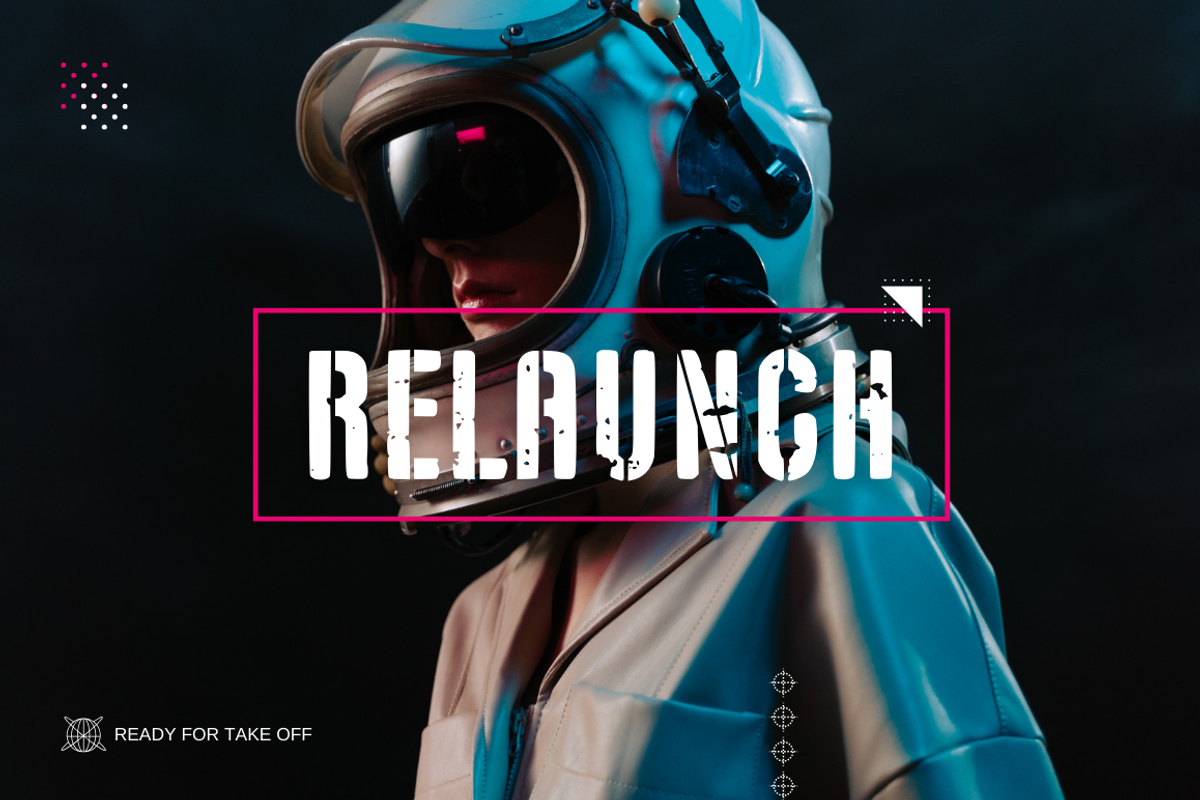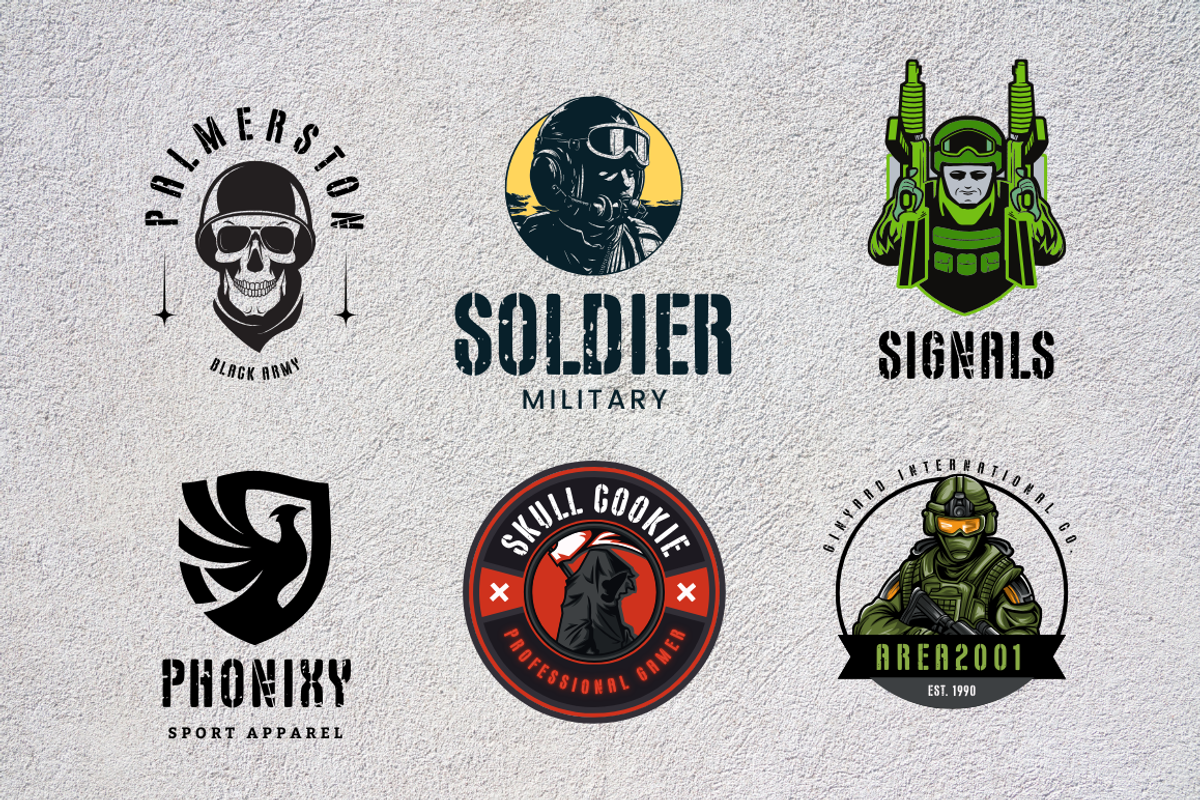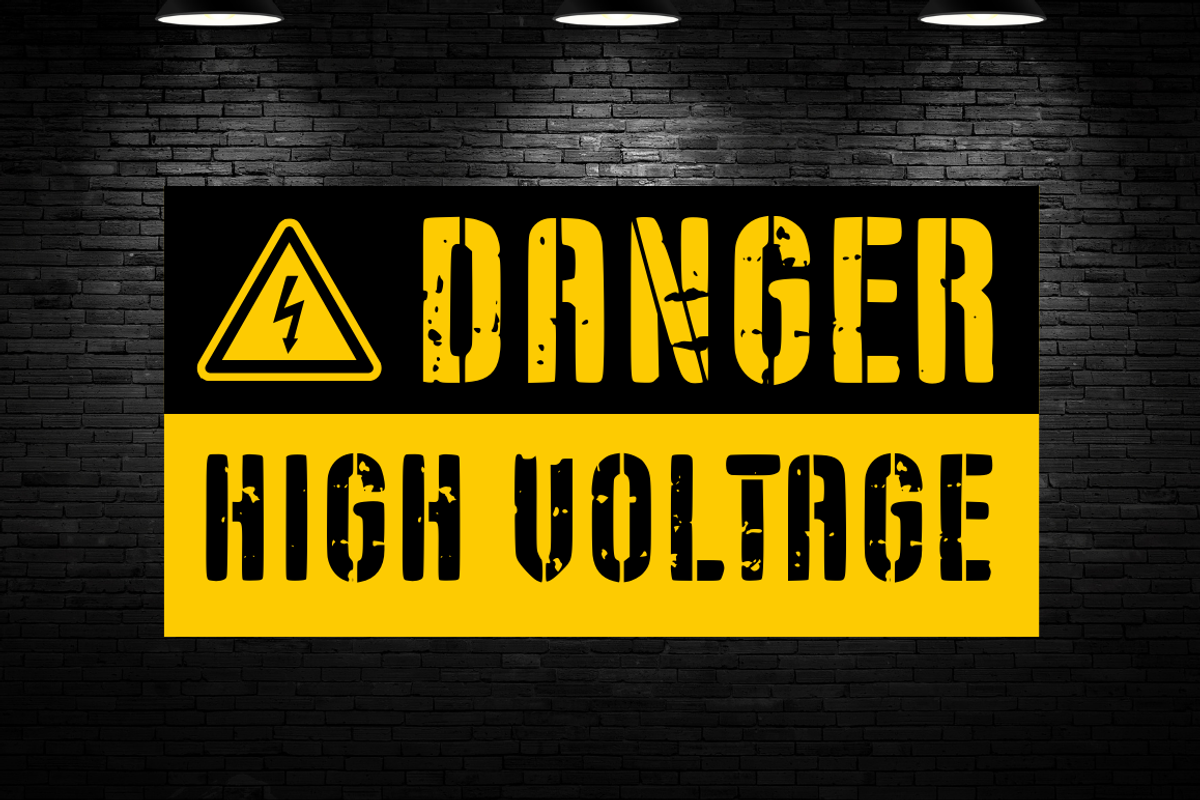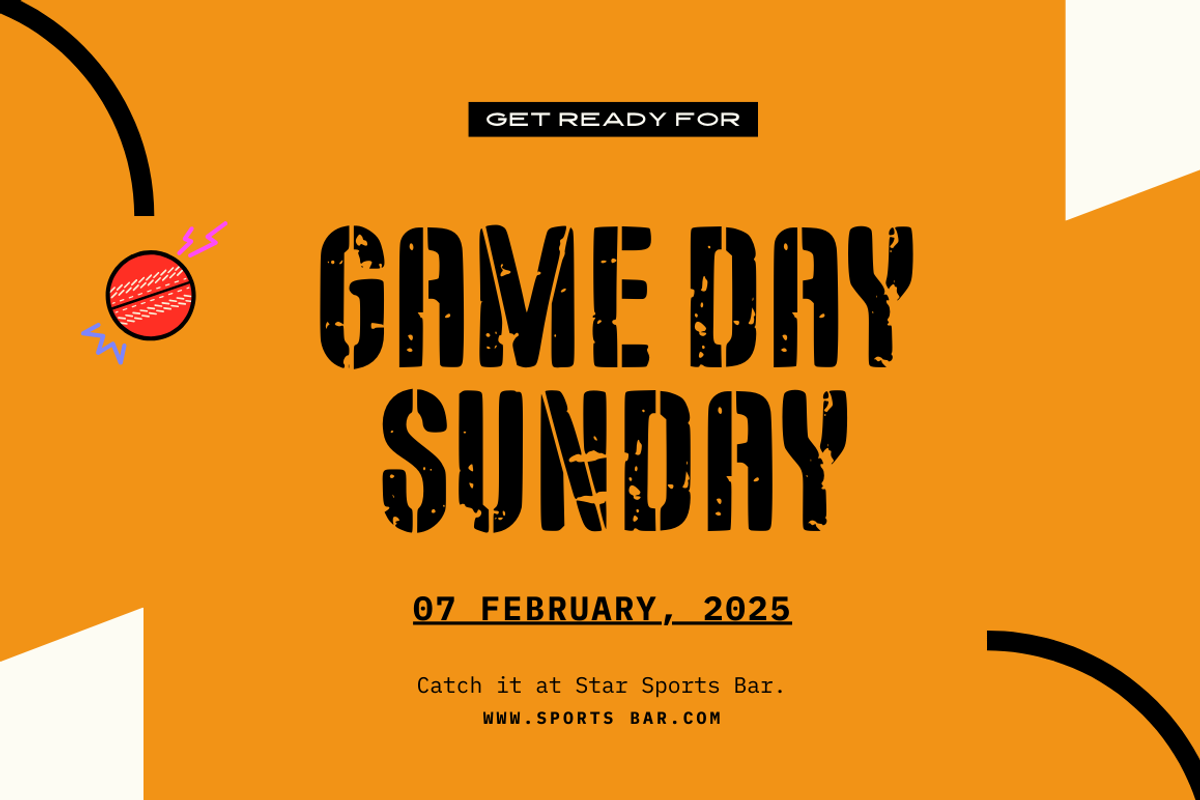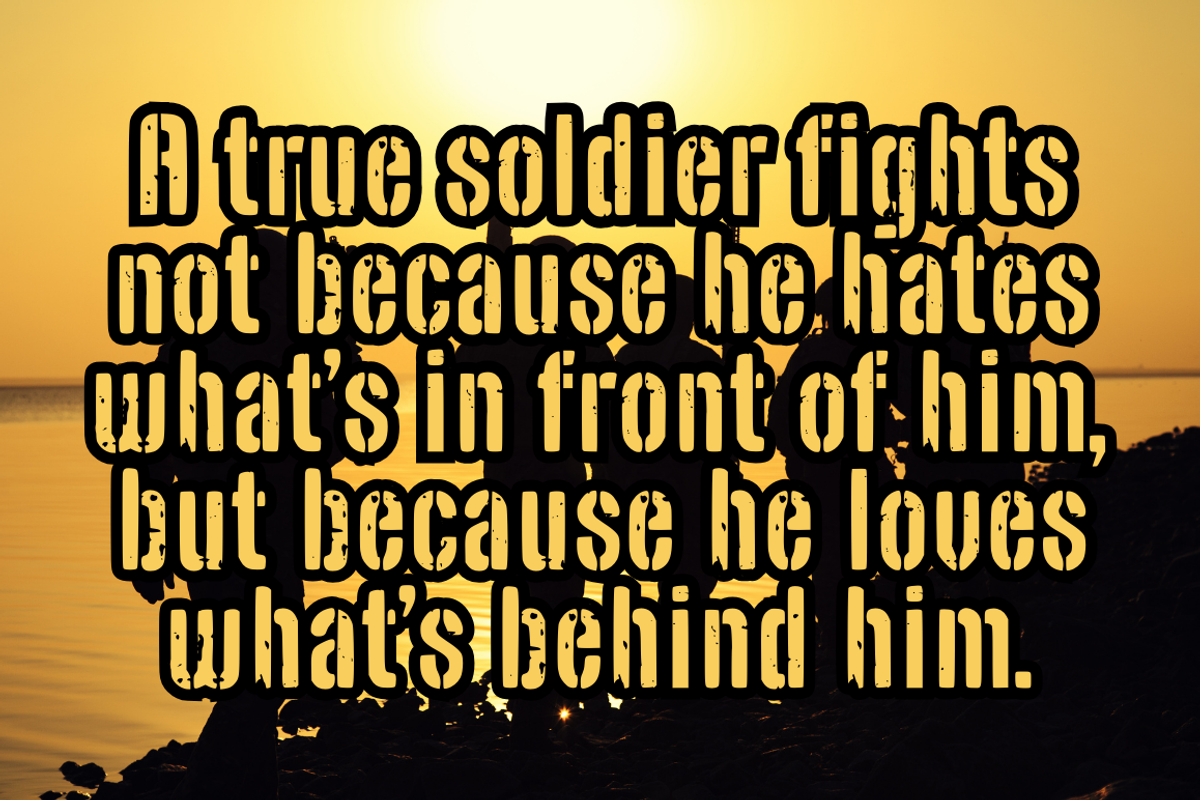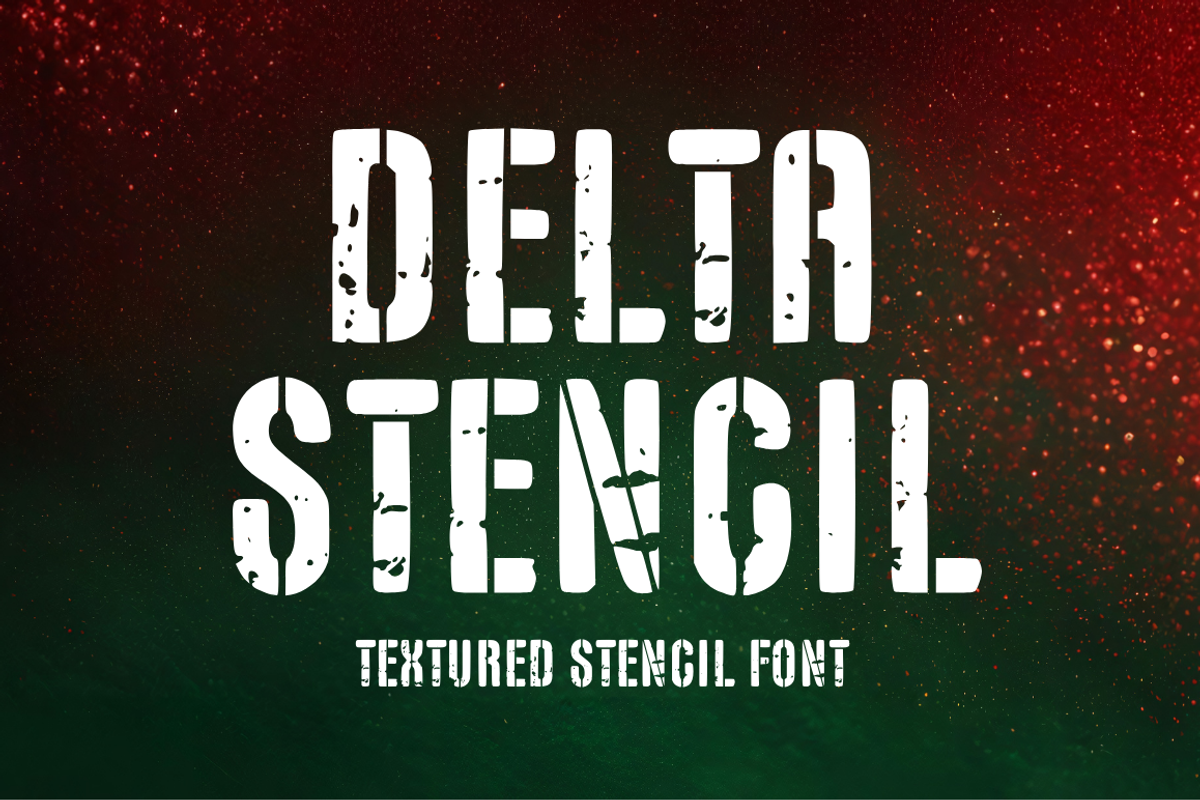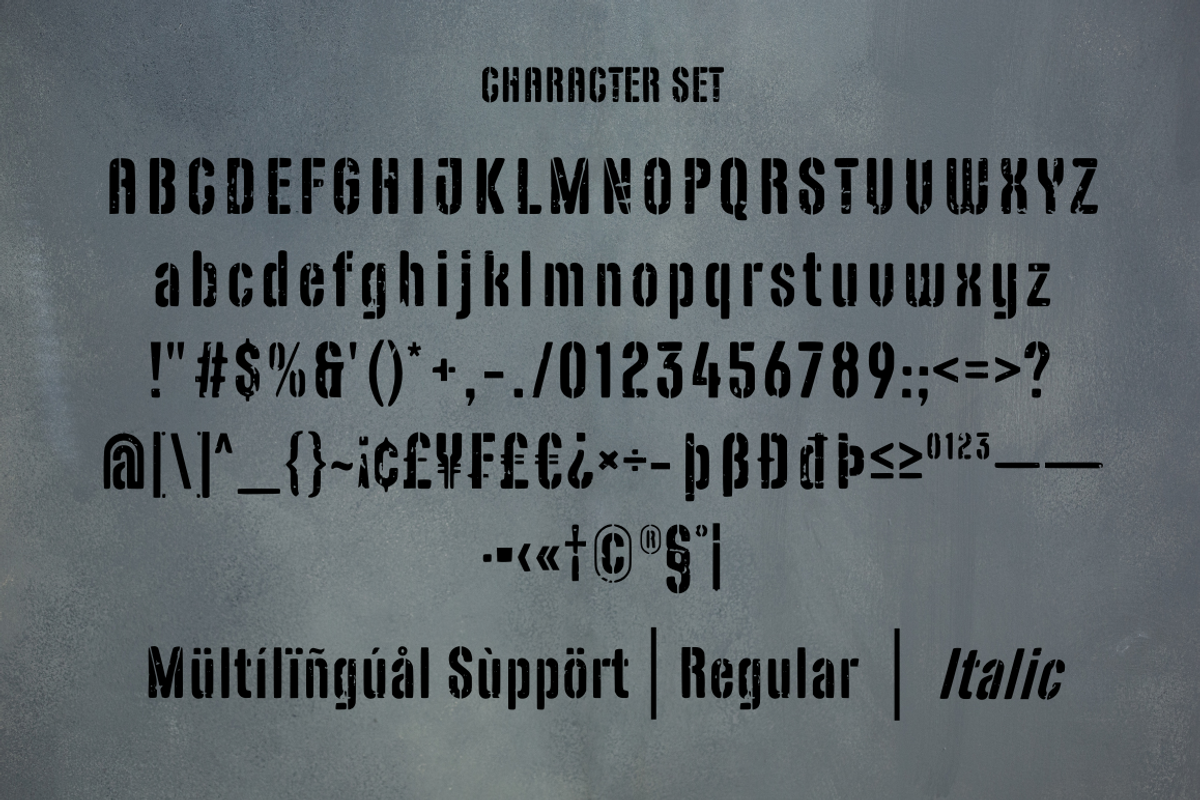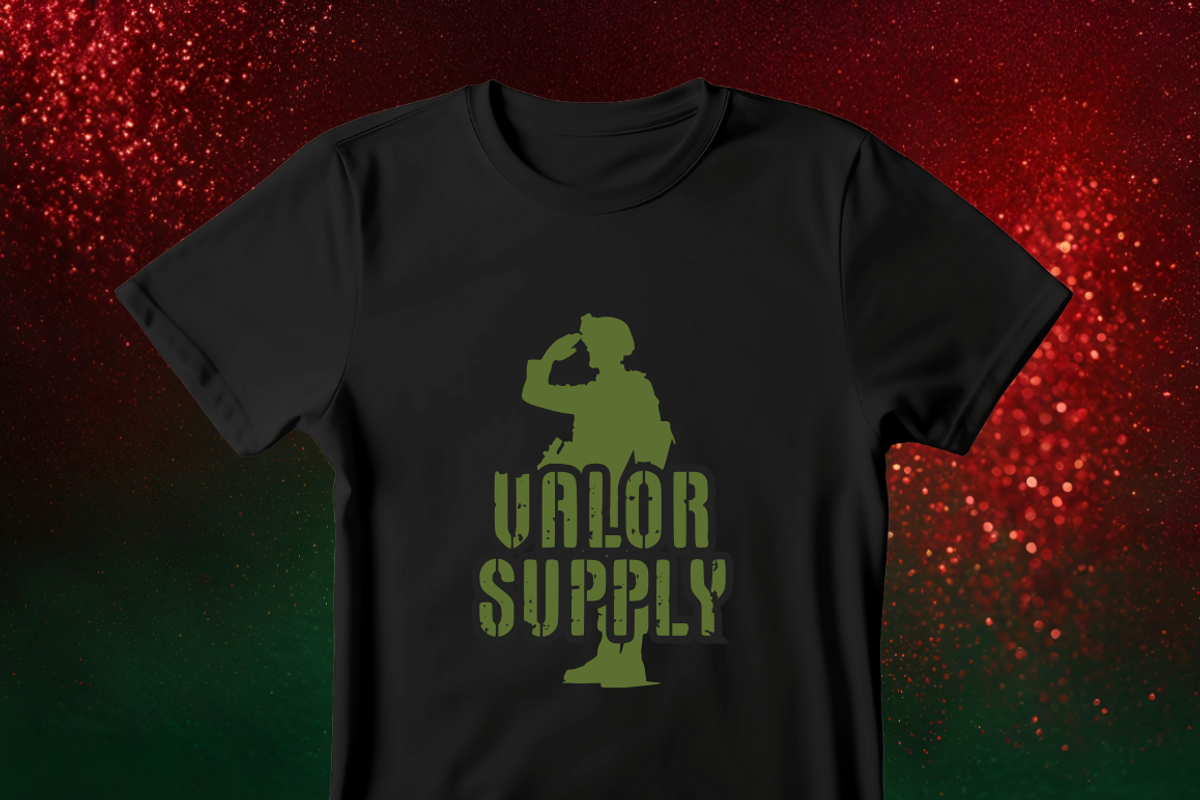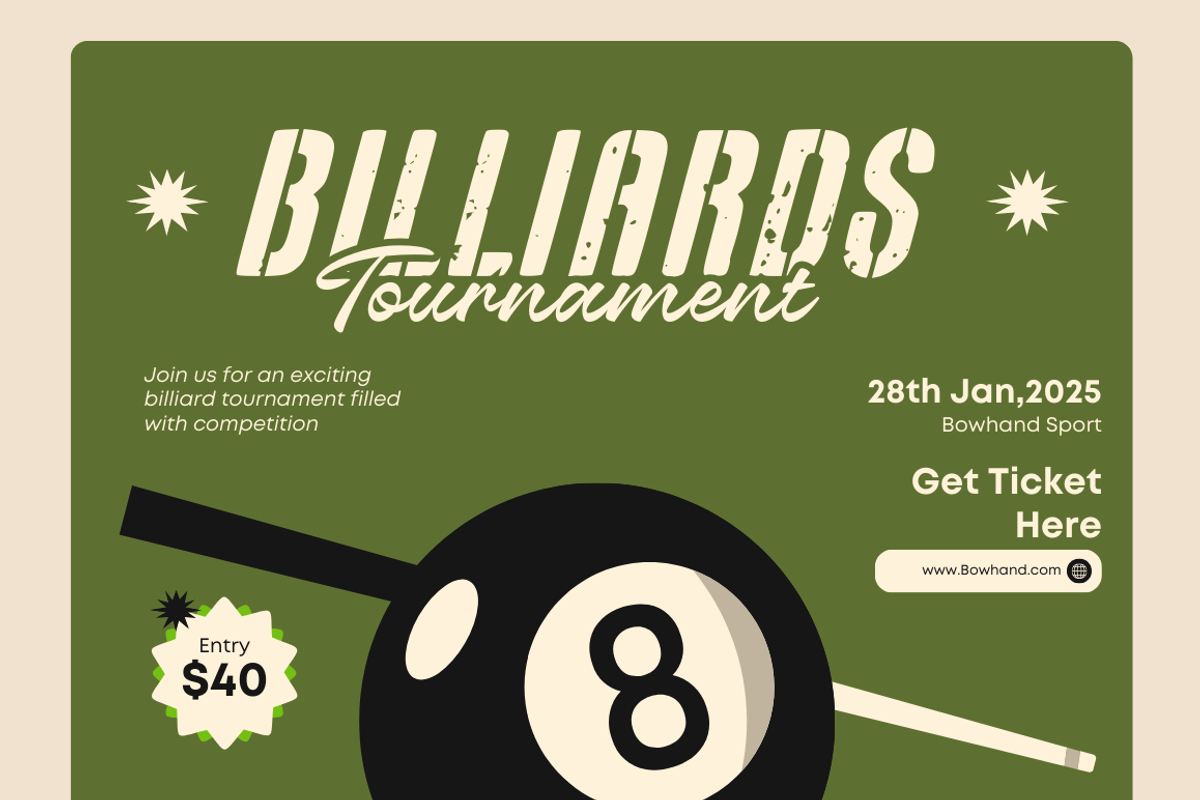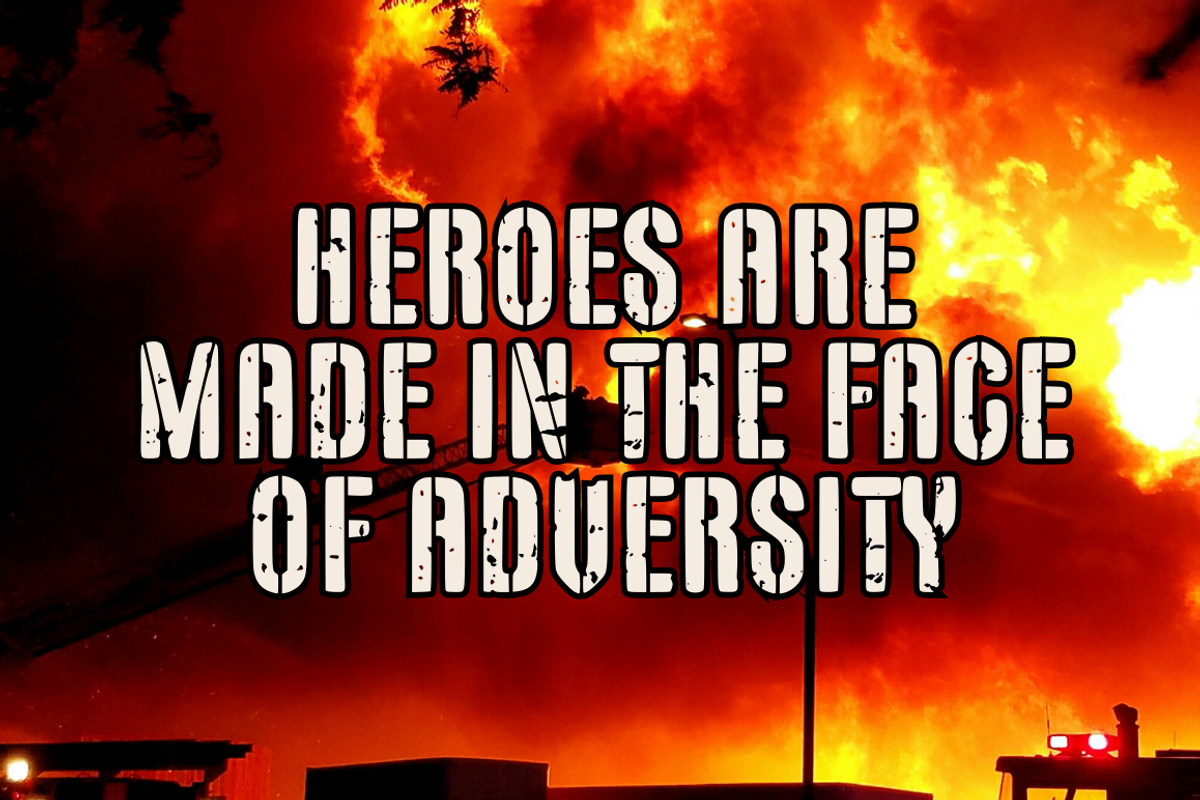
Delta - Textured Stencil Font
Delta Stencil is a rugged and textured stencil font that exudes strength and versatility. Its bold, military-inspired design with distressed details makes it perfect for posters, logos, packaging, and projects that need a tough and industrial vibe. Stand out with Delta Stencil!
- Regular & Italic Style